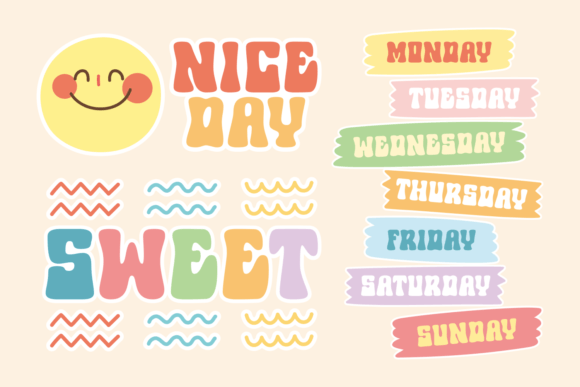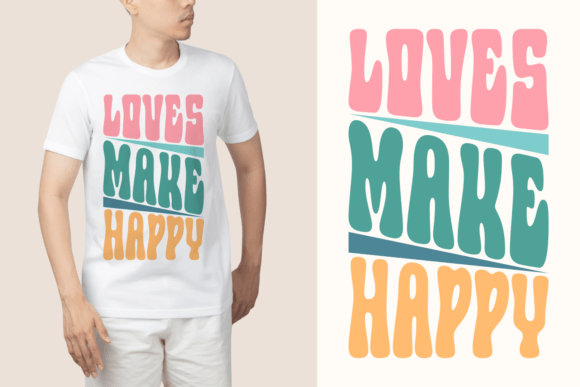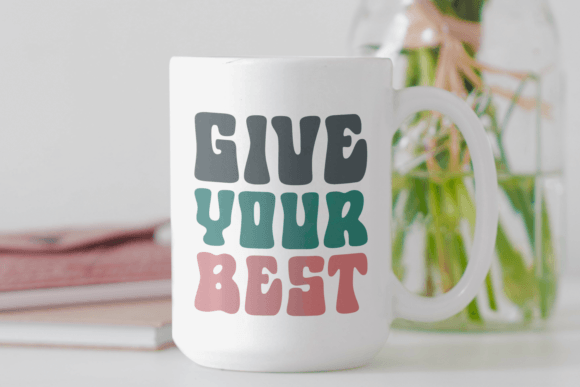
Introduction to Smooth Retro Font
Do you remember that moment when you stumbled upon the perfect design element, and your creative project just came together? For many designers, this moment is what drives us to keep pushing the boundaries of our imagination. And today, we’re excited to share with you a game-changing design resource that will elevate your work to new heights: the Smooth Retro Font.
Whether you’re working on a greeting card, a magazine headline, or a branding project, this versatile font is the perfect addition to bring a touch of romance and elegance to your design. With its stylish and playful vibe, the Smooth Retro Font is an instant winner, and we can’t wait to dive into its features and benefits.
In this article, we’ll explore the world of the Smooth Retro Font, from its high-quality design to its seamless integration into any creative project. Whether you’re a seasoned designer or just starting out, this valuable resource is a must-have for anyone looking to add a touch of sophistication to their work.
Key Features of Smooth Retro Font
- High-quality design: Smooth Retro Font offers a unique blend of vintage and modern elements, perfect for creative projects.
- Transparent background: The font’s transparent background allows for seamless integration with various backgrounds and designs.
- High-resolution design: The font is designed at a high resolution (300 DPI), making it suitable for print and digital applications.
- Unique retro aesthetic: The font’s distinctive retro style is sure to add a touch of nostalgia and charm to any creative project.
- Easy to customize: Smooth Retro Font is highly customizable, allowing designers to adjust the font’s size, color, and style to suit their needs.
Honest Review: Smooth Retro Font
As a designer, I’m always on the lookout for high-quality design resources to elevate my creative projects. Recently, I stumbled upon the Smooth Retro Font, and I’m excited to share my honest review with you.
Here are the things that work well for this font:
- ✨ The font features a transparent background, allowing for seamless integration with various design elements.
- ✨ The high-quality design ensures that it will look great on any device or platform.
- ✨ It’s perfect for creating a retro vibe in your designs, from vintage-inspired posters to nostalgic-themed websites.
- ⚠️ The font library is relatively small, which may limit its versatility for more complex design projects.
- ⚠️ Some users may find the retro aesthetic to be too on-the-nose, making it difficult to use in more subtle designs.
Overall, I’m impressed with the Smooth Retro Font. It’s a great addition to any designer’s toolbox, and with a little creativity, it can be used to create stunning designs. While it may have some limitations, I believe it’s a solid choice for designers looking to add a touch of retro flair to their projects.
How to Use Smooth Retro Font
Tips for Getting the Most Out of Smooth Retro Font
Smooth Retro Font is a versatile font that can be used in a variety of creative projects, including graphic design, digital art, and typography. It’s perfect for creating a retro-inspired design or adding a touch of nostalgia to your project.
Can I customize the Smooth Retro Font to fit my design needs?
The Smooth Retro Font is a high-quality design resource that can be easily customized using most design software. You can adjust the font size, color, and style to fit your creative project’s requirements. Additionally, the font’s transparent background allows for seamless integration with other design elements, giving you complete control over the final design.